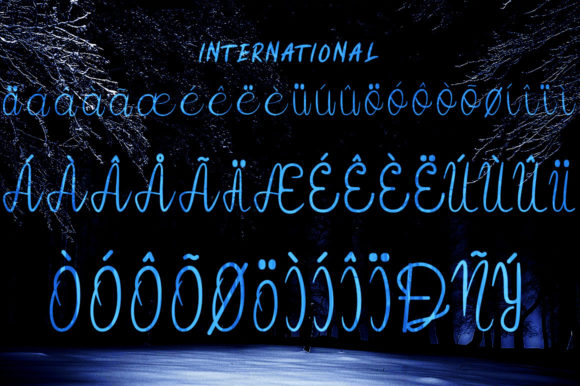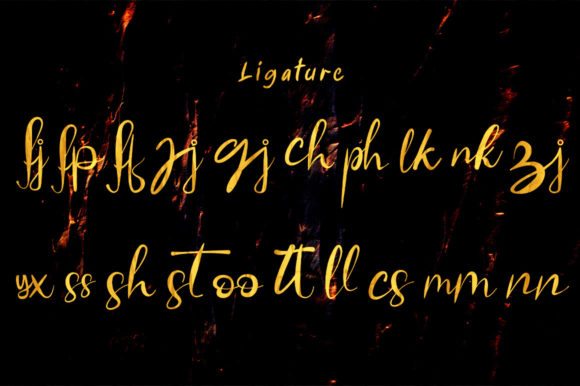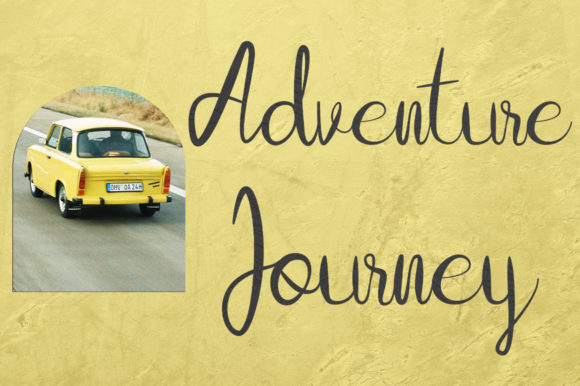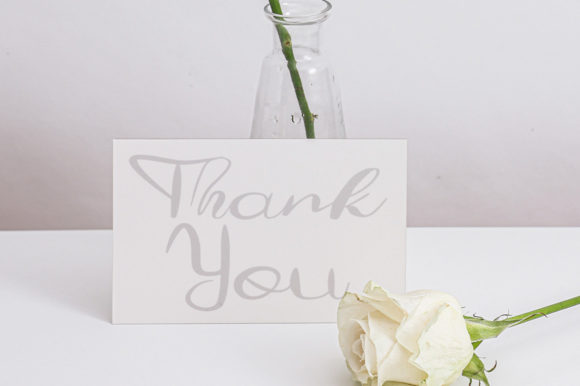
About Basudewa Font
Basudewa is a well-adjusted script font featuring charming, playful characters that seem to dance along the baseline. Add this font to your most appealing ideas, and notice how it makes them stand out!